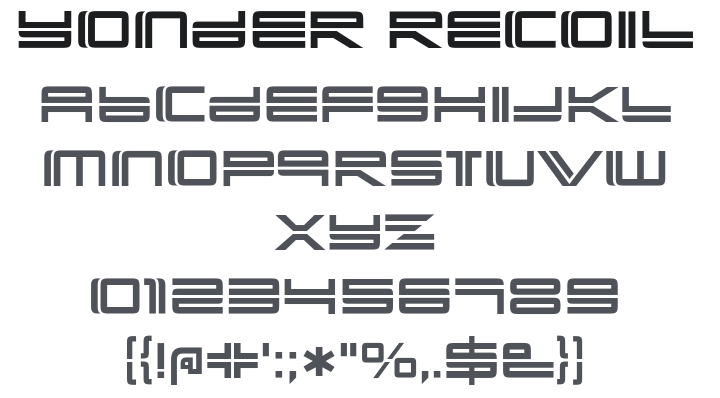
Yonder Recoil Font
About Yonder Recoil
Yonder Recoil is a sleek, twin-line techno display typeface from 1997 where every letterform is rendered as a double parallel stroke outline — giving each character an elegant, speed-line precision that feels simultaneously futuristic and aerodynamic. A distinctive vertical split on select letters adds extra visual intrigue. Perfect for sci-fi game titles, tech branding, racing graphics, space-themed designs, and any headline needing clean, high-velocity futuristic energy.